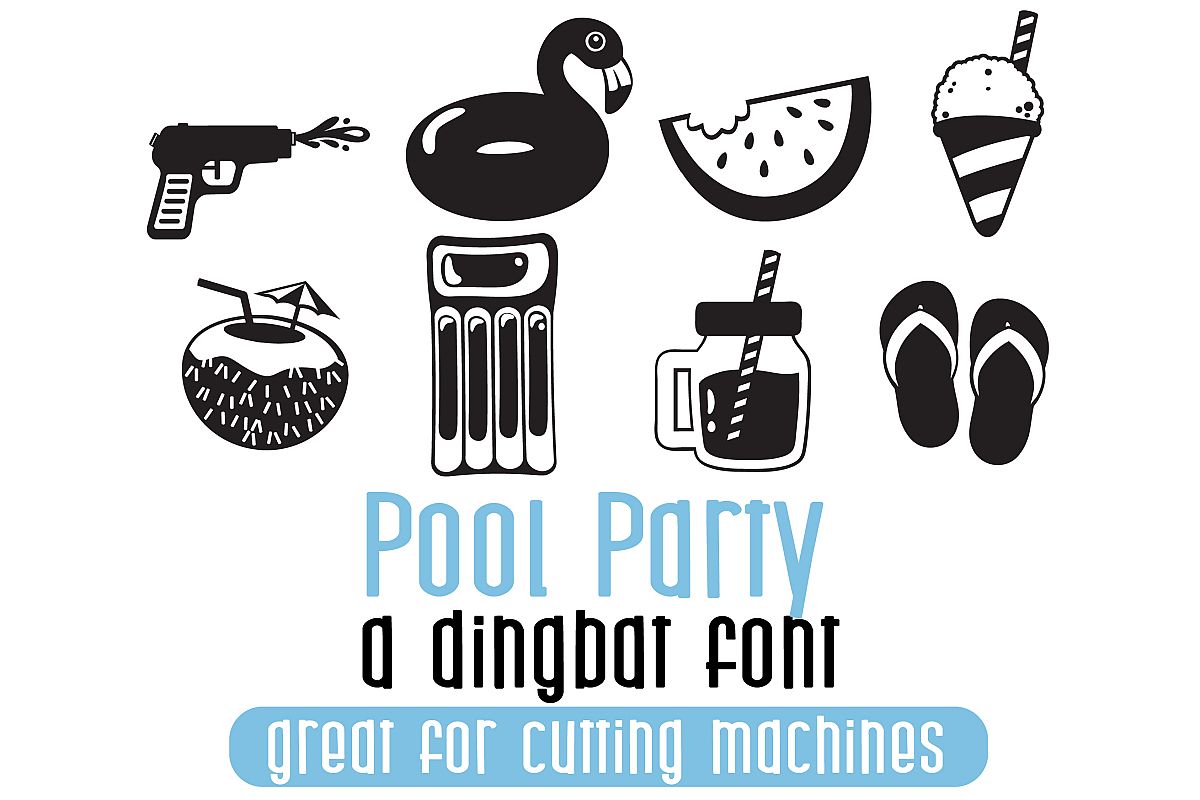
This dingbat font has 26 pool party images. These glyphs were made with care so they can be cut on a cutting machine.
Font includes the same characters in both the upper and lowercase.